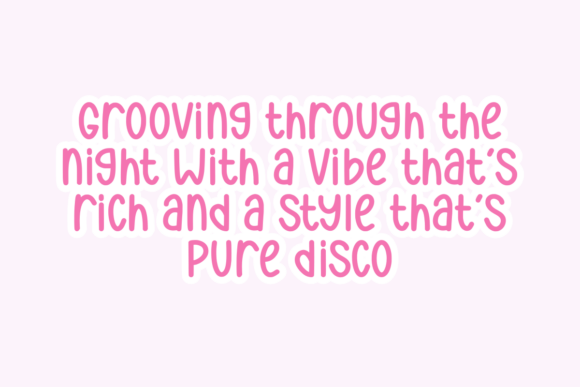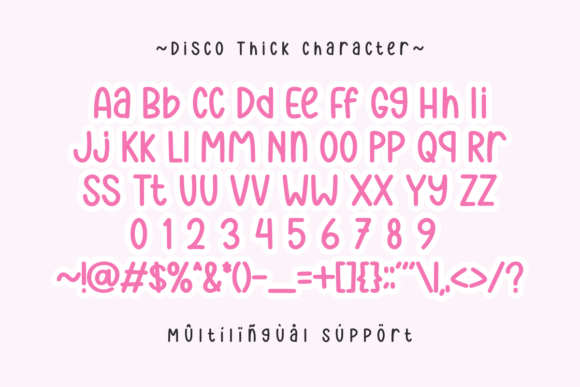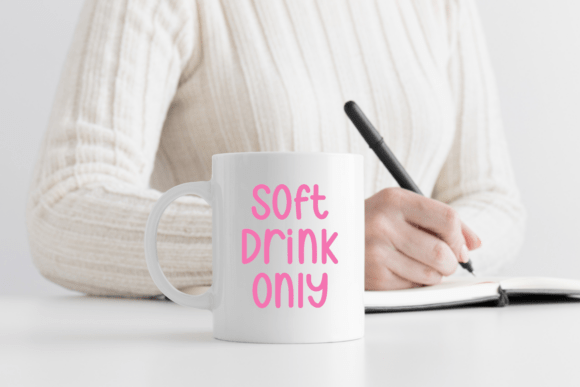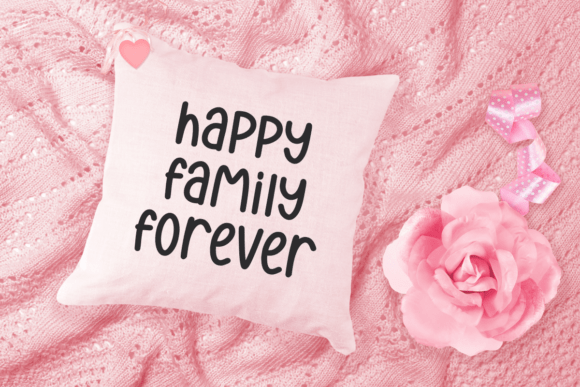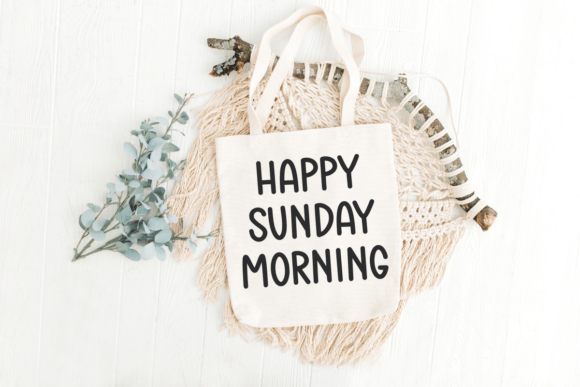
Introducing Disco Thick Font: The Perfect Blend of Whimsy and Elegance
Are you on the hunt for a font that exudes romance, playfulness, and a touch of sophistication? Look no further than Disco Thick, a charming handwriting font that’s sure to capture your heart. With its clean yet whimsical vibe, smooth curves, and hand-drawn feel, Disco Thick is the perfect choice for designers and crafters seeking to add a personal touch to their projects.
The Characteristics of Disco Thick Font
Disco Thick is a versatile font that boasts a unique blend of modernity and playfulness. Its smooth curves and hand-drawn feel give it a distinctive, human touch that’s perfect for creating romantic designs, wedding invitations, heartfelt branding, and elegant social media graphics. Whether you’re looking to add a touch of whimsy to your project or create a more sophisticated look, Disco Thick is the ideal choice.
Perfect for Romantic Designs and Wedding Invitations
Disco Thick’s elegant and refined aesthetic makes it an excellent choice for romantic designs and wedding invitations. Its smooth curves and flowing lines evoke a sense of love and sophistication, making it perfect for:
- Wedding invitations and save-the-date cards
- Romantic getaway announcements and honeymoon souvenirs
- Love-inspired branding and packaging design
- Elegant social media graphics and Valentine’s Day promotions
Adding a Touch of Whimsy to Your Designs
While Disco Thick is undoubtedly elegant, it’s also playful and fun. Its hand-drawn feel and smooth curves give it a lighthearted, carefree vibe that’s perfect for adding a touch of whimsy to your designs. Use Disco Thick to:
- Create eye-catching social media graphics and promotional materials
- Design playful and engaging packaging for your products
- Add a personal touch to your branding and marketing materials
- Develop unique and eye-catching craft projects, such as handmade cards and gift tags
Why Choose Disco Thick Font?
So, why should you choose Disco Thick font for your next project? Here are just a few reasons:
- Versatility: Disco Thick is a versatile font that works beautifully in a variety of contexts, from romantic designs to playful promotions.
- Elegance: Disco Thick’s smooth curves and flowing lines give it an undeniable air of sophistication and refinement.
- Playfulness: Disco Thick’s hand-drawn feel and whimsical vibe make it perfect for adding a touch of playfulness to your designs.
- Easy to Read: Despite its elegant and refined aesthetic, Disco Thick is surprisingly easy to read, making it perfect for body text and headlines.
Tips for Using Disco Thick Font
To get the most out of Disco Thick font, here are a few tips to keep in mind:
- Pair it with contrasting fonts: Disco Thick works beautifully when paired with contrasting fonts, such as bold sans-serifs or elegant scripts.
- Use it for headlines and titles: Disco Thick’s elegant aesthetic makes it perfect for headlines and titles, where it can add a touch of sophistication and refinement.
- Experiment with colors and textures: Disco Thick’s versatility makes it the perfect choice for experimenting with different colors and textures, from soft pastels to rich metallics.
Disco Thick font is a charming handwriting font that’s sure to capture your heart. With its clean yet whimsical vibe, smooth curves, and hand-drawn feel, it’s the perfect choice for designers and crafters seeking to add a personal touch to their projects. Whether you’re creating romantic designs, wedding invitations, or playful promotions, Disco Thick is the ideal choice. So why wait? Give Disco Thick a try today and see the magic for yourself!